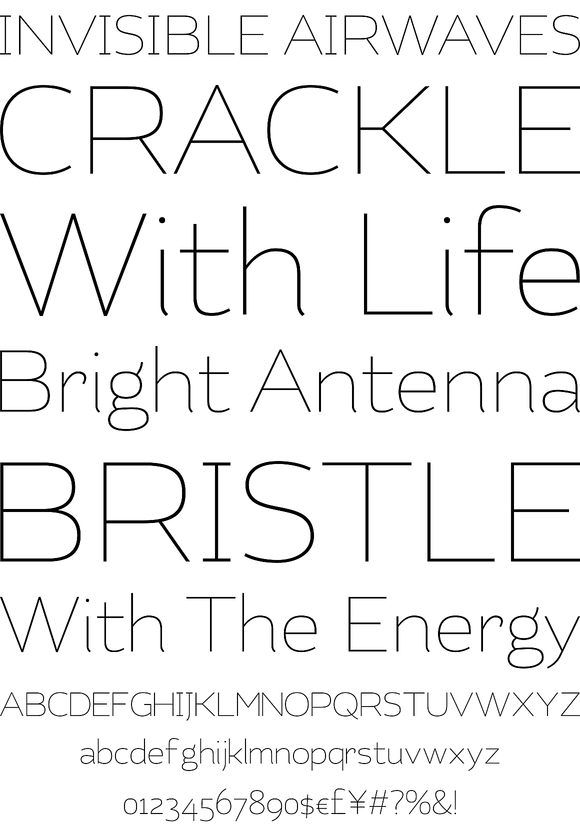
Kahlo is a latin style hipster typography, to is a formal and elegant option for designers. Is a font with four weights and italics, initial capital letters, have some alternate characters and ending.
Kahlo Kahlo Kahlo
Kahlo is a latin style hipster typography, to is a formal and elegant option for designers. Is a font with four weights and italics, initial capital letters, have some alternate characters and ending.Is a typeface best suitable for magazine headlines, posters, logos, cosmetics packaging, advertising etc.